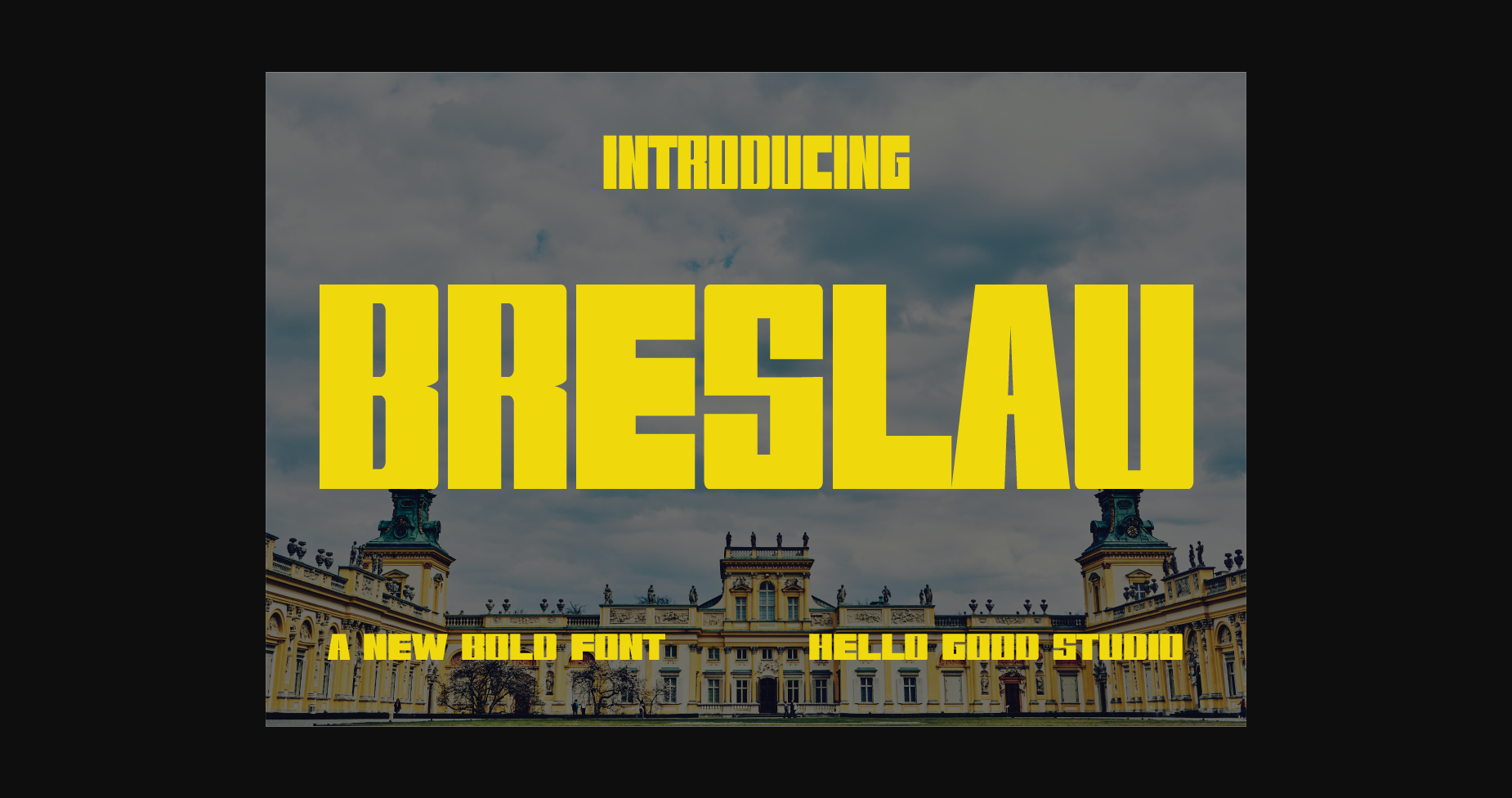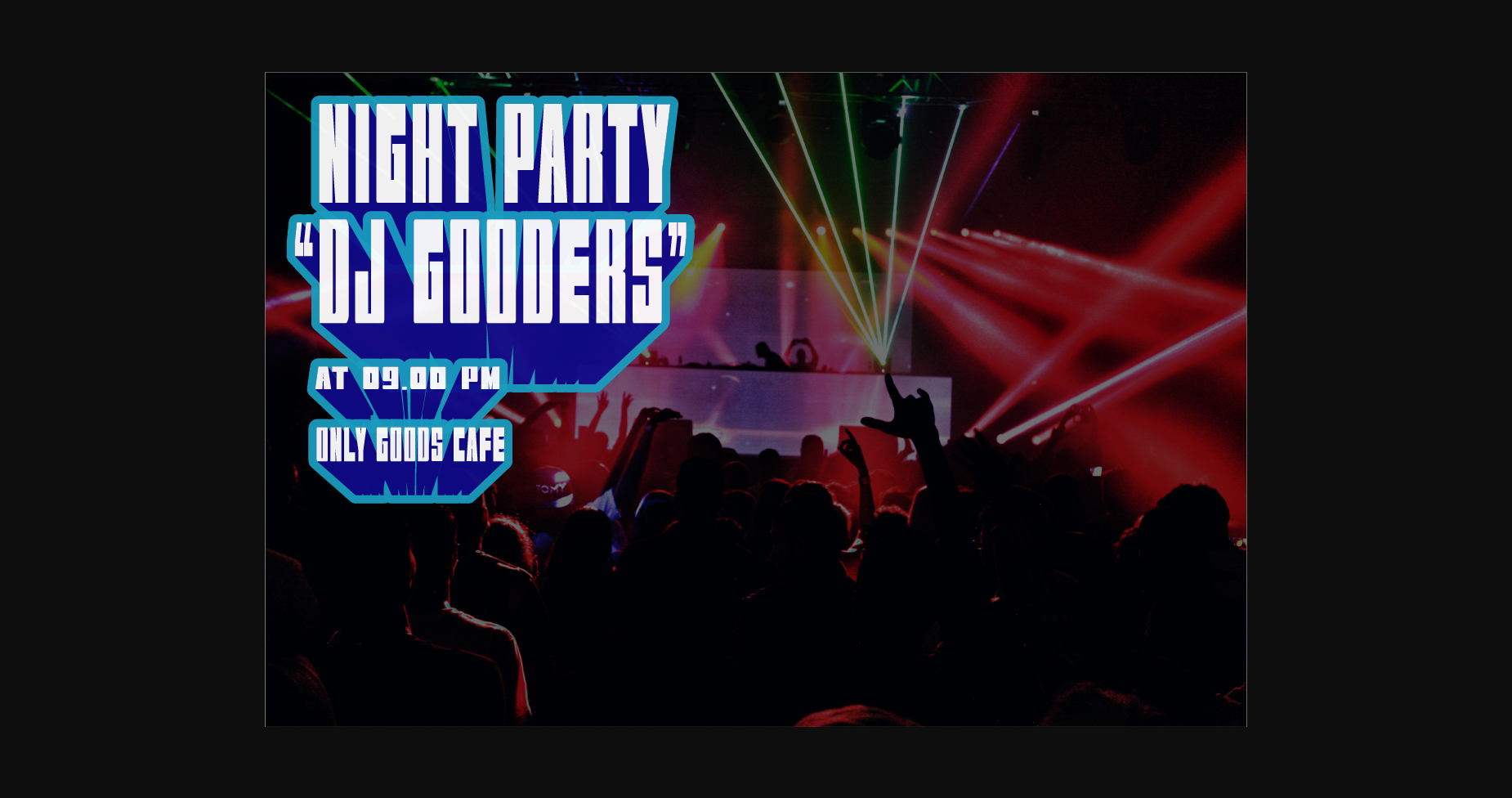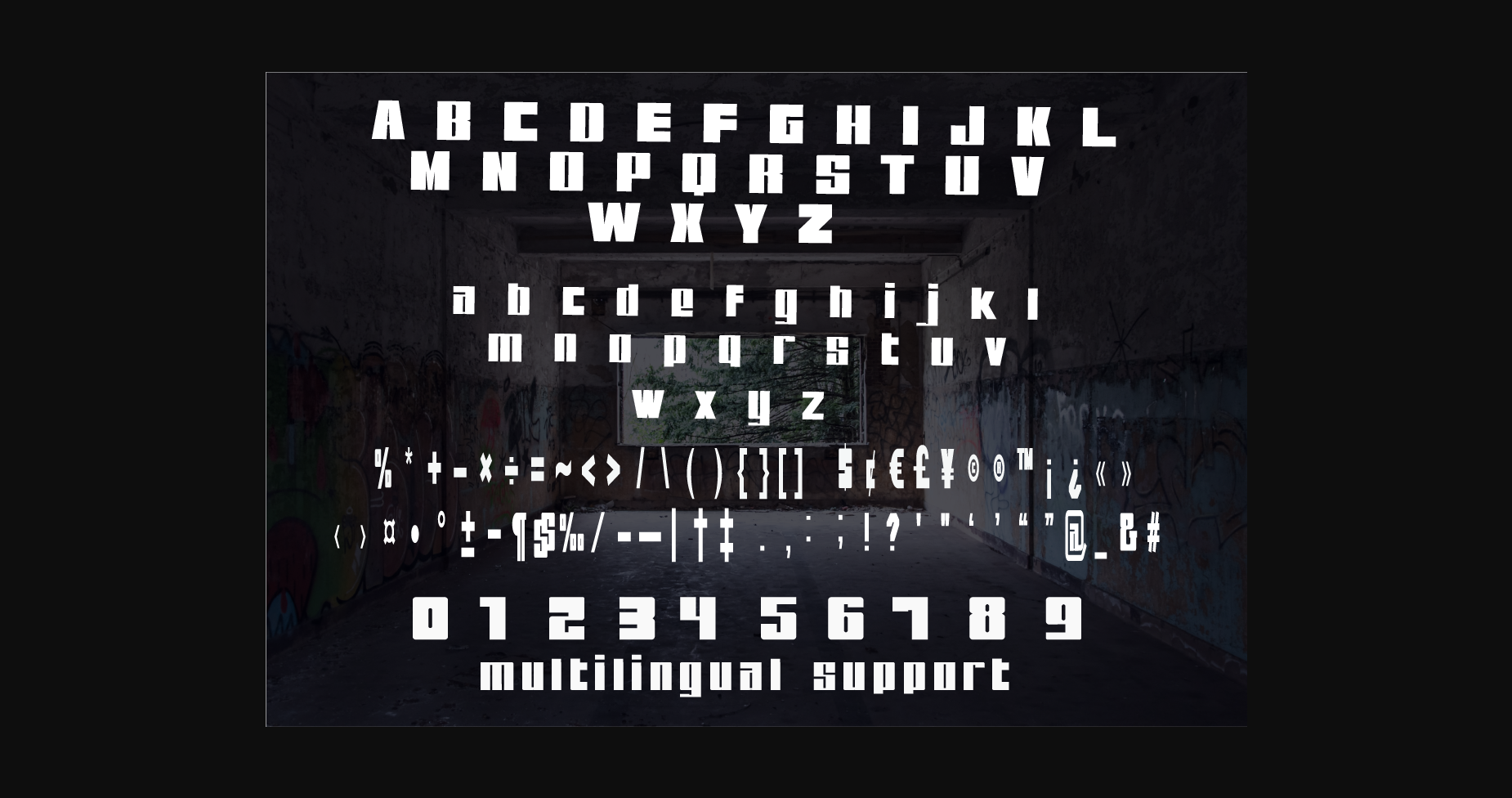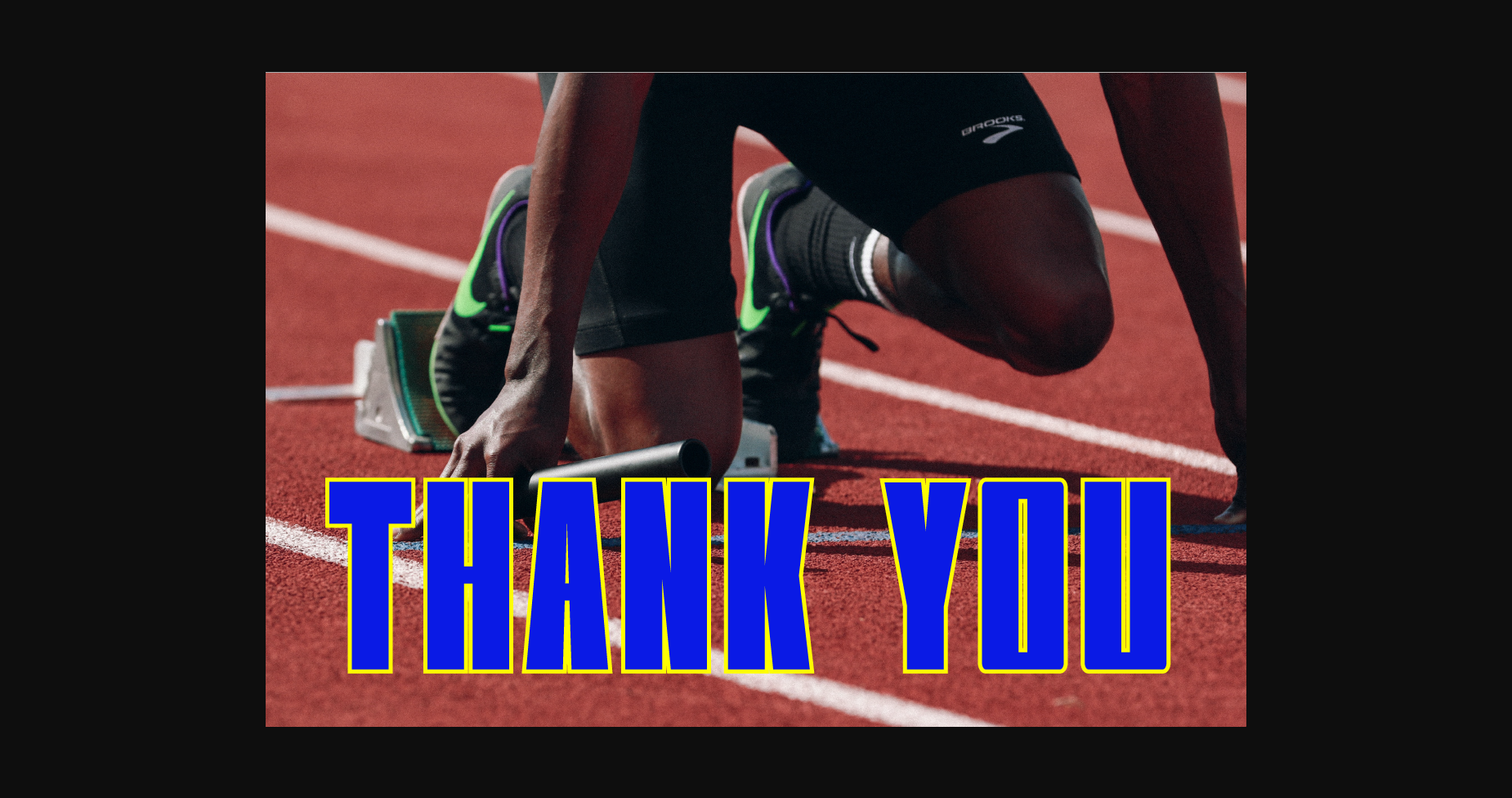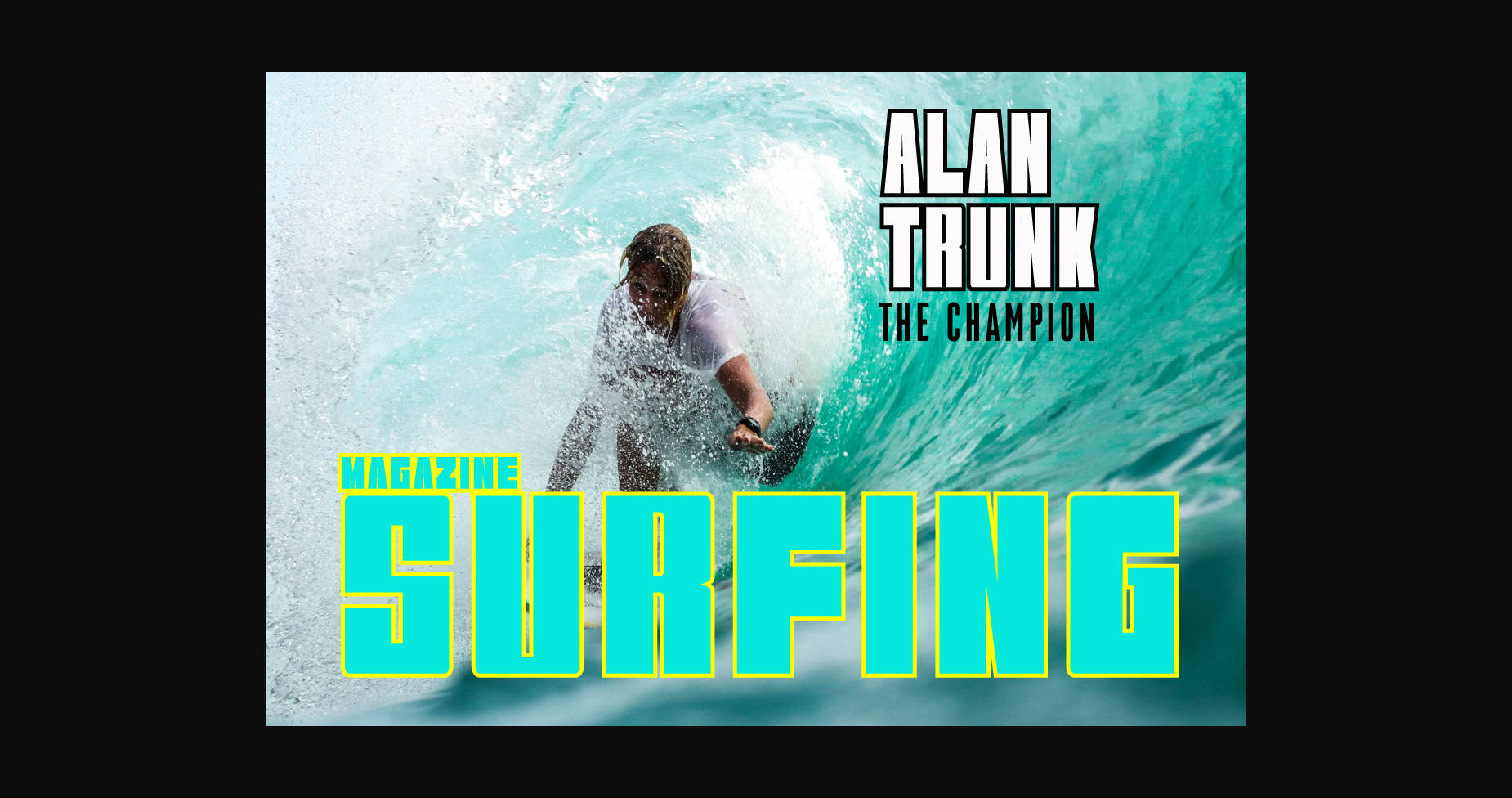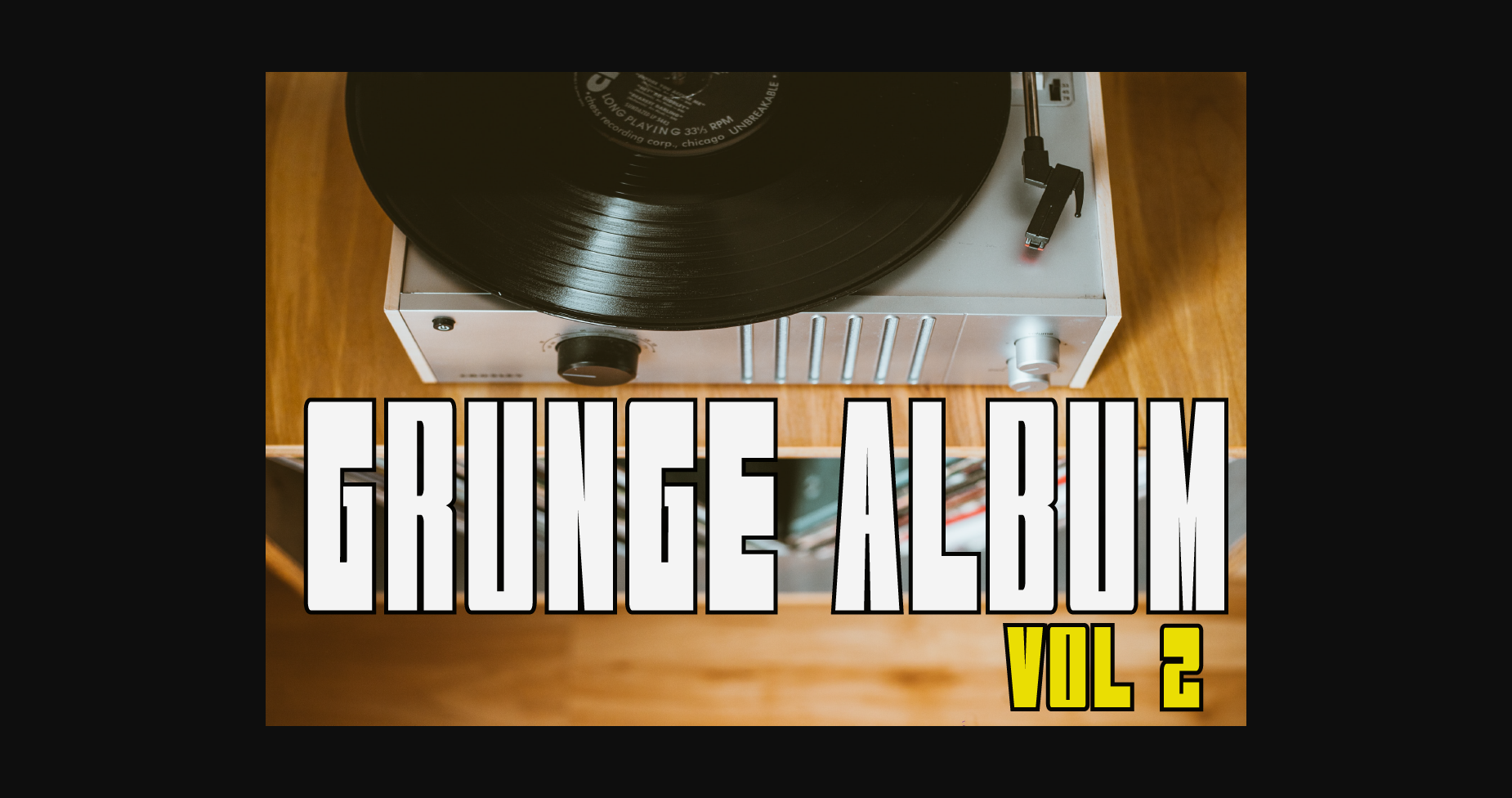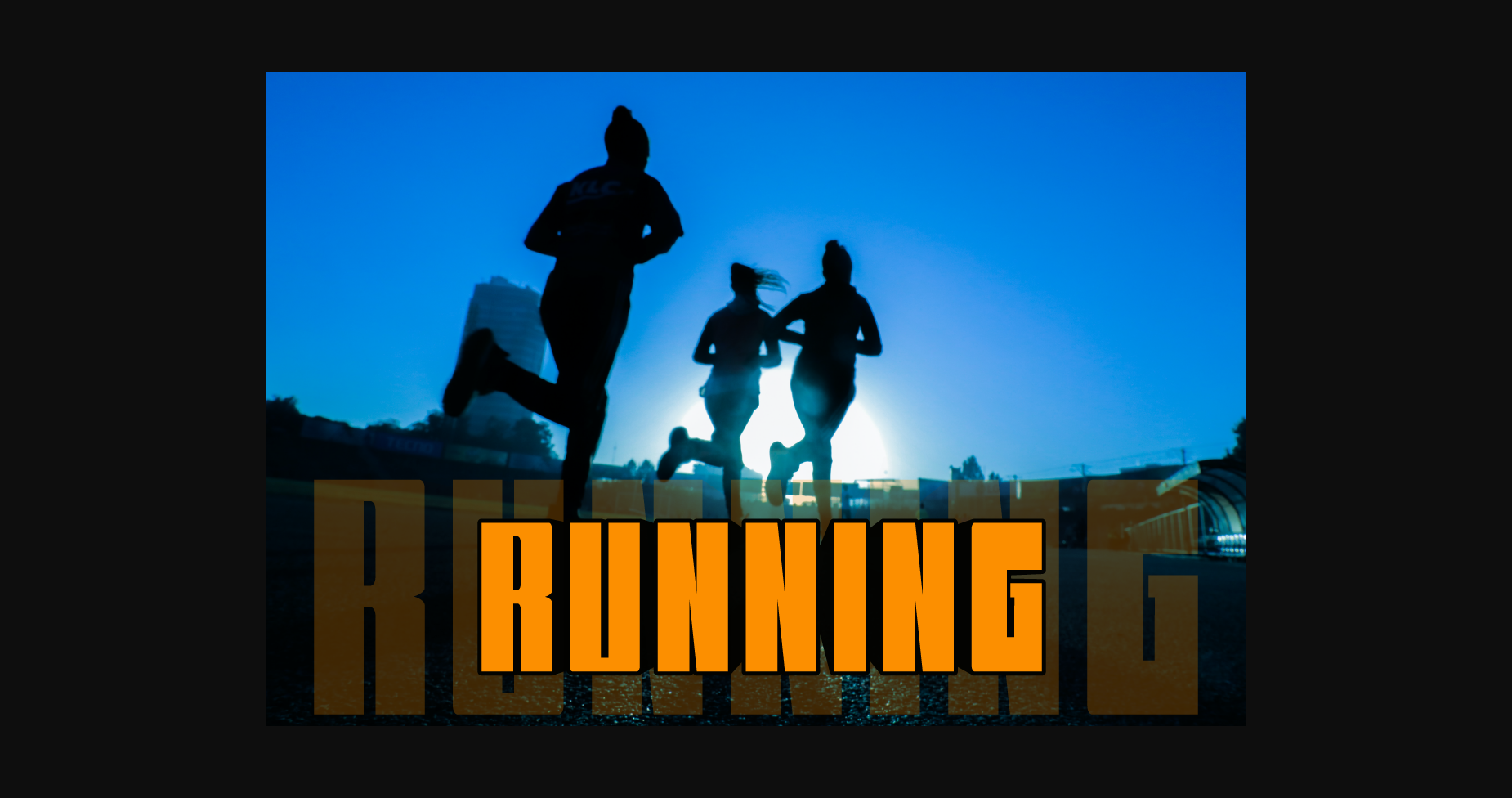
HomeSans Serif FontsBreslau Font Sans Serif Fonts Breslau Font FacebookTwitterPinterestWhatsApp 1 of 9 ... Breslau Font Poster 2... Breslau Font Poster 3... Breslau Font Poster 4... Breslau Font Poster 5... Breslau Font Poster 6... Breslau Font Poster 7... Breslau Font Poster 8... Breslau Font Poster 9... About Breslau Font Breslau is a cool and bold display font. Add it confidently to your projects and enjoy the results! DOWNLOAD NOW People also explored Butterfly Font Stalking Font Stitched Cutie Font Katterina Font Kembang Font My Diary Font Sweetheart Font Sticks and Stones Gurinda Font 245 0 TagsBreslauBreslau Font Previous articleEagle Sight Rough FontNext articleTwiner Font LEAVE A REPLY Cancel reply Comment: Please enter your comment! Name:* Please enter your name here Email:* You have entered an incorrect email address! Please enter your email address here Website: Save my name, email, and website in this browser for the next time I comment. Personal Use Free Blessed Font Personal Use Free Read more about this font Ontel Personal Use Free Read more about this font BD Pipe Personal Use Free Read more about this font Miracles Personal Use Free Read more about this font BLOG Where to Buy American Fonts Online in 2024 Where to Buy American Fonts Online: The Ultimate Guide for 2024 Looking for the perfect American font to elevate your design projects? You're in the... To increase your work productivity, choose the most readable fonts. Using Fonts in Digital Marketing: Tips to Strengthen Your Brand Identity Elegant Wedding Invitation Fonts – Handwritten & Script Fonts